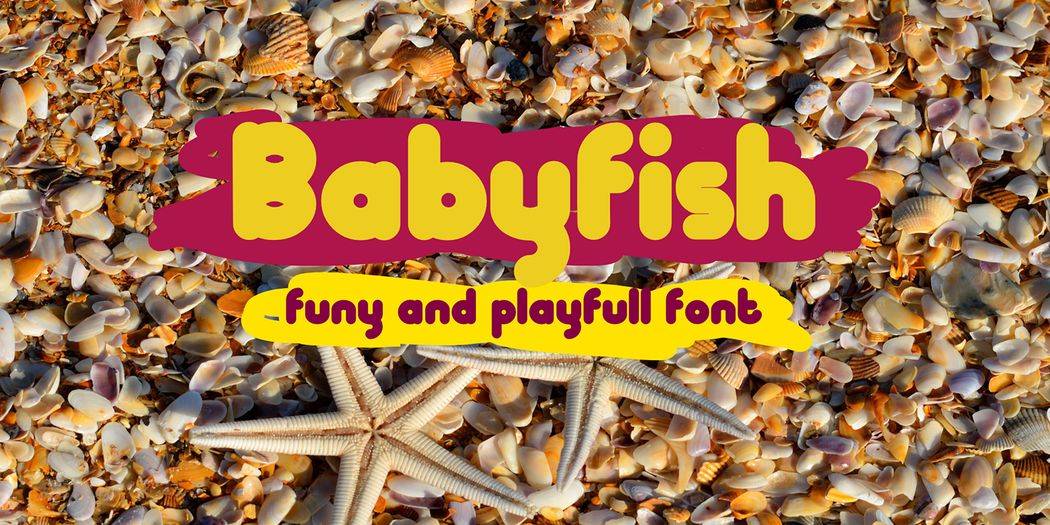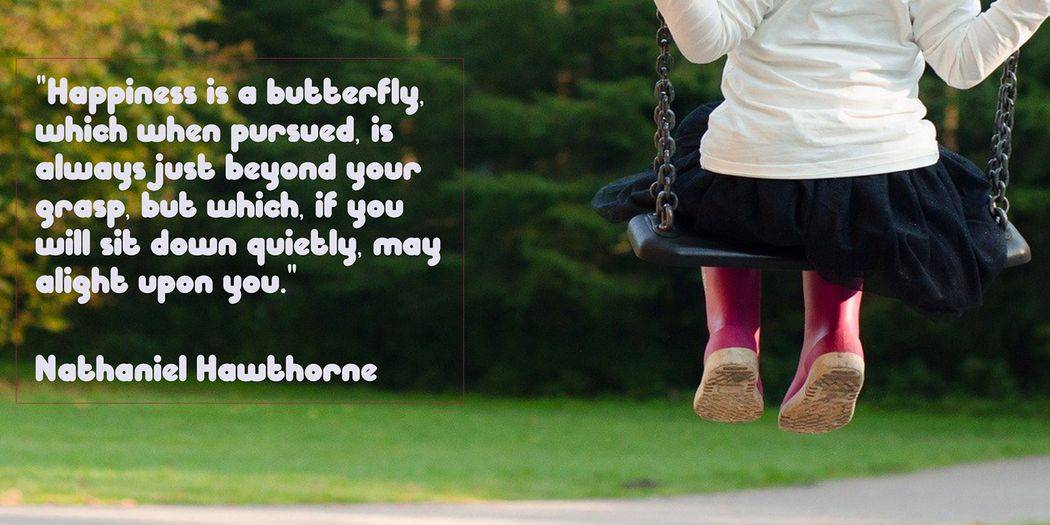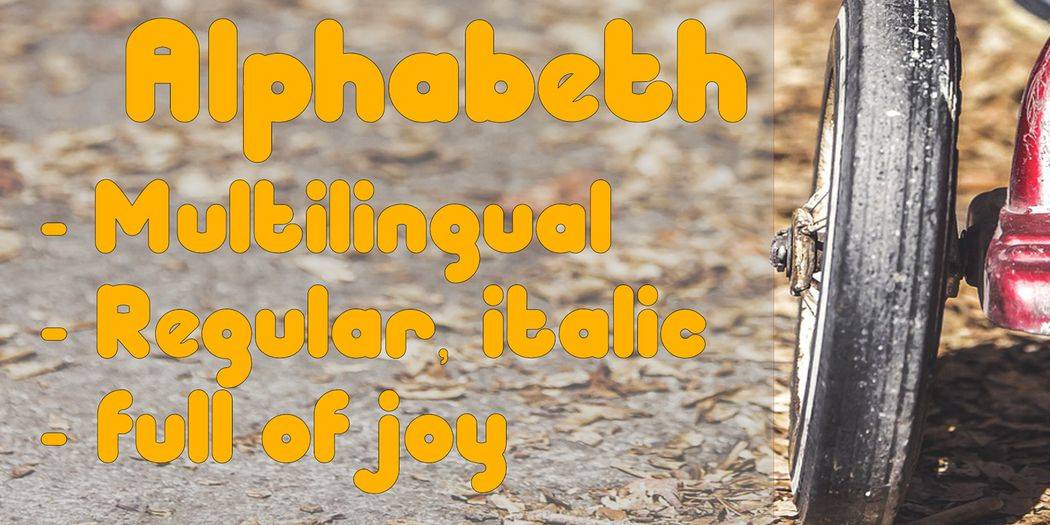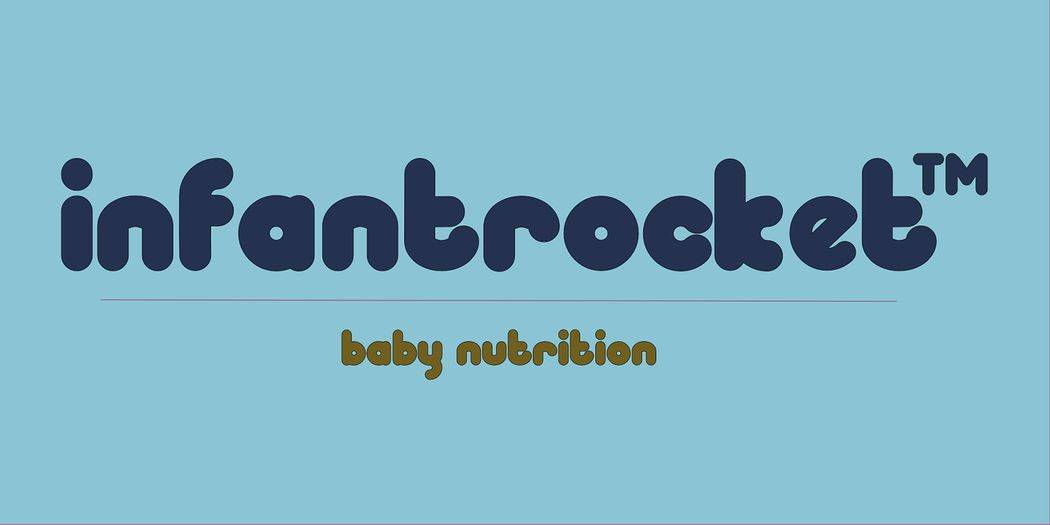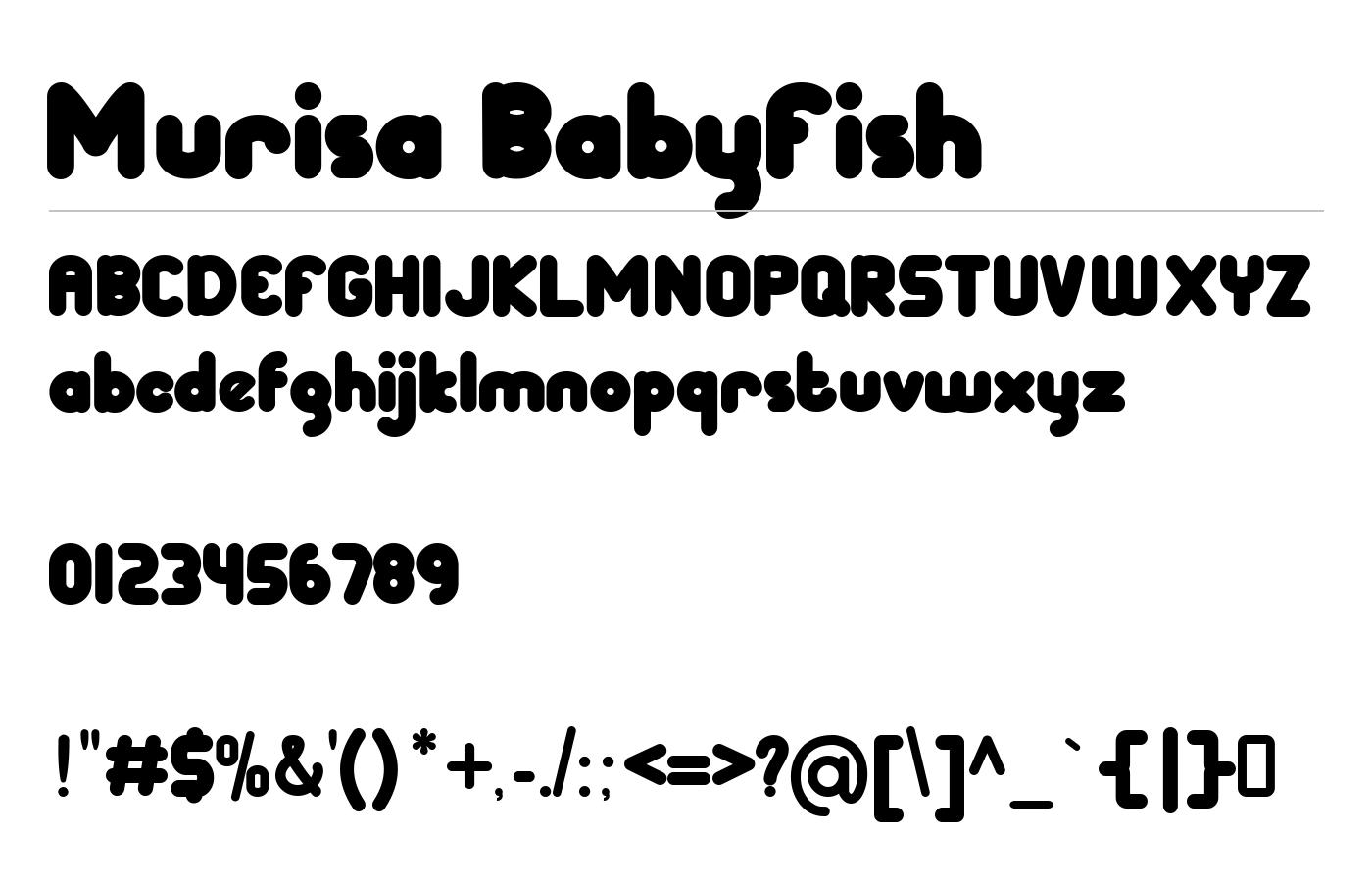
Murisa Babyfish is a bold, rounded sans serif font with a playful and friendly vibe. Its thick, smooth strokes and soft curves give it a warm, approachable feel, making it ideal for children's content, casual branding, and fun, informal designs. This font works well in headlines, logos, and packaging where a cheerful and inviting tone is desired.
Murisa Babyfish Font
About Murisa Babyfish Font
| Font family | Murisa Babyfish Font |
| Designer | Lili Sadili |